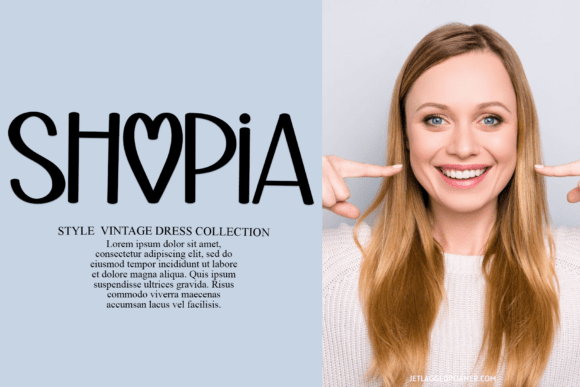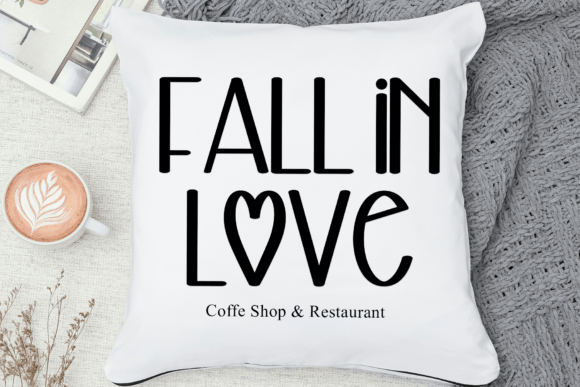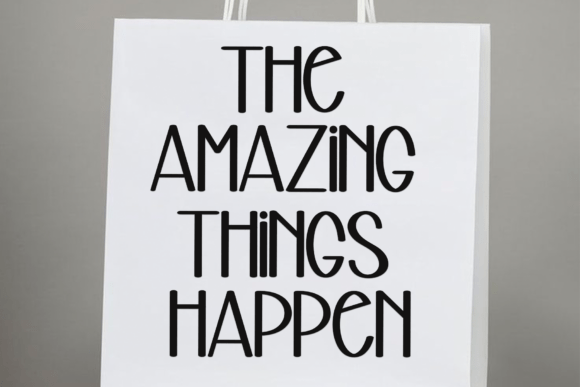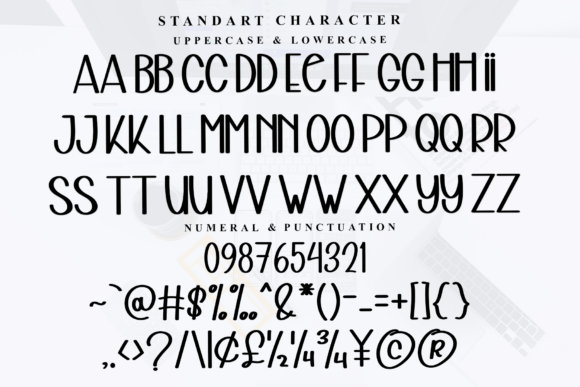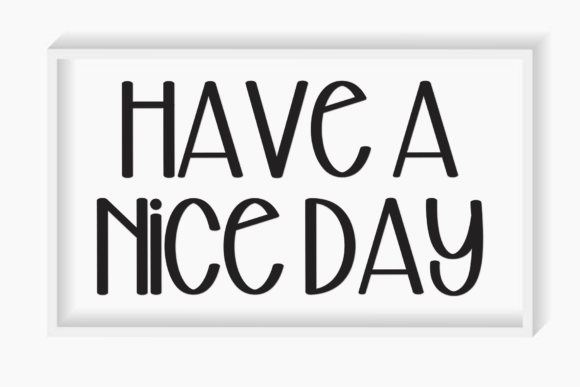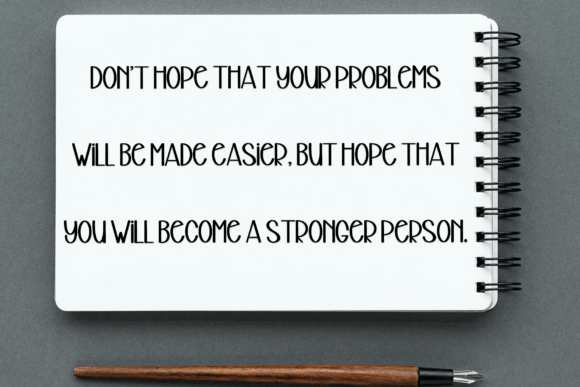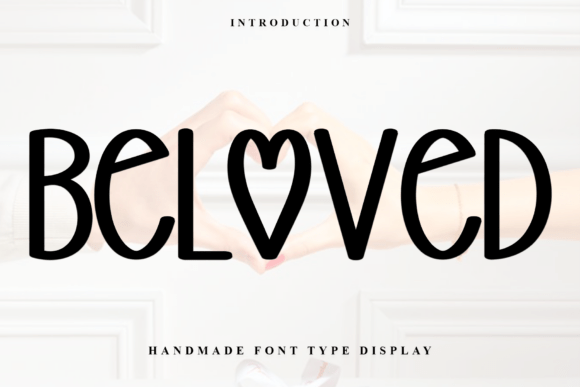
Discover the Charm of Beloved Font: Elevate Your Designs with its Unique Touch
In the world of typography, a font can make or break a design. It’s the perfect blend of style, elegance, and creativity that can elevate a project from ordinary to extraordinary. If you’re a designer, crafter, or creative enthusiast looking for a font that can add a touch of sophistication and whimsy to your work, look no further than Beloved Font. In this article, we’ll explore the beauty and versatility of Beloved Font, and how it can become your go-to choice for a wide range of design projects.
The Beauty of Beloved Font
Beloved Font is a stunning, eye-catching typeface that boasts a soft, unique touch. Its distinctive strokes and curves give it a special character that sets it apart from other fonts. The font’s natural, effortless style makes it perfect for designs that require a touch of elegance and sophistication. Whether you’re working on a logo, branding project, or marketing material, Beloved Font is sure to make your design stand out.
Versatility at its Best
One of the best things about Beloved Font is its versatility. With a wide range of characters, this font is perfect for various design projects, crafts, and creative works. From digital designs to print materials, Beloved Font can be used across different artistic and creative fields. Whether you’re a professional designer or a DIY enthusiast, this font is sure to become a staple in your design toolkit.
Beloved Font is ideal for a wide range of design projects, including:
- Marketing materials and brochures
- Crafts and DIY projects
- Stationery and invitations
Whether you’re working on a personal project or a client’s brief, Beloved Font is sure to add a touch of magic to your designs. Its unique style and versatility make it perfect for crafts, such as paper crafting, scrapbooking, and card making.
Why Choose Beloved Font?
So, why choose Beloved Font over other fonts? Here are just a few reasons:
- Unique style: Beloved Font’s distinctive strokes and curves give it a special character that sets it apart from other fonts.
- Versatility: With a wide range of characters, this font is perfect for various design projects and crafts.
- Elegance and sophistication: This font’s natural, effortless style makes it perfect for designs that require a touch of elegance and sophistication.
In conclusion, Beloved Font is a beautiful and eye-catching typeface that can elevate your designs to the next level. Its unique style, versatility, and compatibility make it perfect for a wide range of design projects, crafts, and creative works. Whether you’re a professional designer or a DIY enthusiast, Beloved Font is sure to become a staple in your design toolkit. So, why wait? Discover the charm of Beloved Font today and take your designs to new heights!